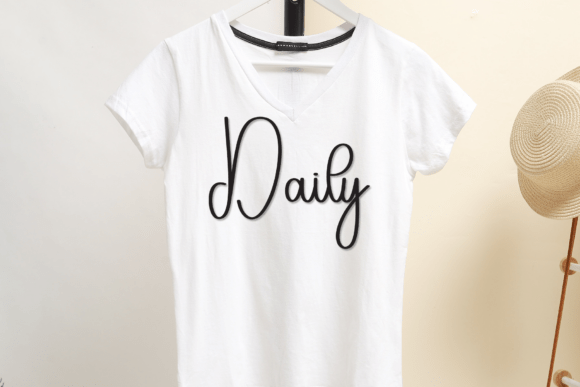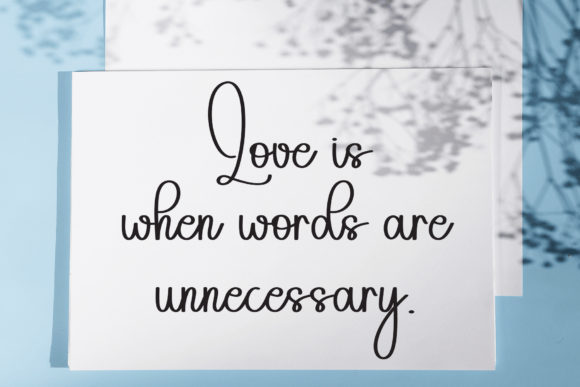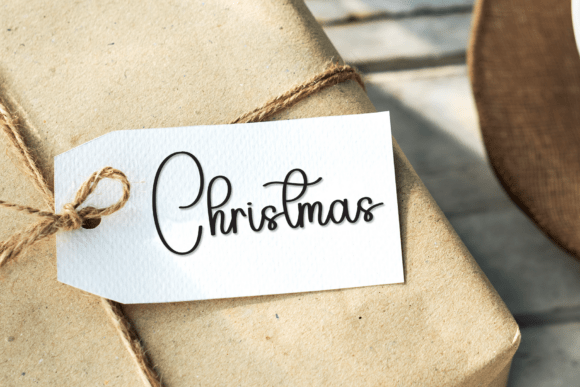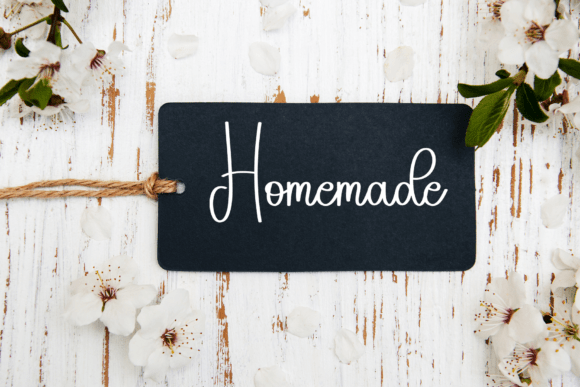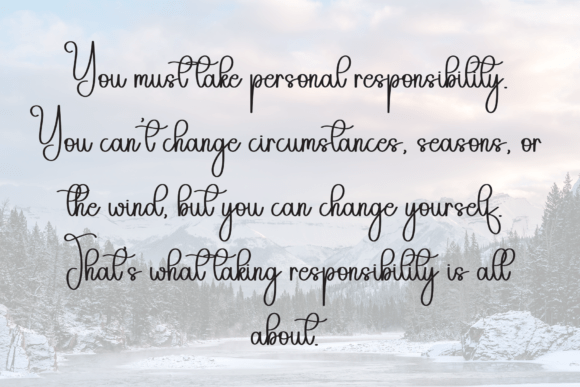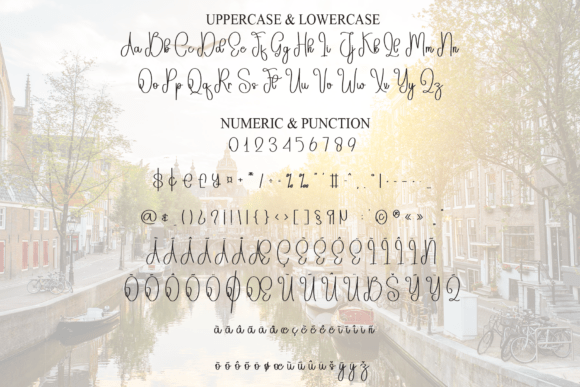
Unleash the Joy of Handwritten Charm with Amsterdam Font
Who hasn’t felt a surge of excitement when flipping through a beautifully designed wedding invitation or greeting card? The tactile experience of holding a physical piece of art, the way the words dance across the page, and the overall sense of whimsy – it’s a moment that sparks creativity and inspires us to create something special. For designers, finding the perfect font can make all the difference in capturing that magic and making our designs truly unforgettable.
Enter Amsterdam Font, a delightful handwritten display font that exudes warmth and playfulness. This charming font is designed to add a touch of joy to your designs, making it perfect for wedding invitations, greeting cards, and any project that requires a dash of whimsy. By incorporating Amsterdam Font into your designs, you’ll not only elevate the aesthetics but also create a visual treat that captures the hearts of your audience.
- Unique Characteristics: Amsterdam Font features a unique blend of modern and traditional typography, with a distinctive flair and elegance that sets it apart from other fonts.
Amsterdam Font Review
I recently had the chance to work with the Amsterdam Font, and I must say it’s a unique addition to any design project. ✨ One of the things that stands out about this font is its quirky, handwritten feel, which adds a touch of personality to any text. ✨ The Amsterdam Font is perfect for creating a laid-back, casual atmosphere in your designs, making it ideal for blogs, social media, or any project that requires a relaxed tone.
- Quirky, handwritten feel that adds personality to text
- Perfect for creating a laid-back, casual atmosphere
- Easy to read and use in various design projects
However, there are some limitations to consider. ⚠️ One of the main issues I had with the Amsterdam Font is its lack of versatility. While it’s great for casual projects, it may not be the best choice for more formal or professional designs. Additionally, the font can be a bit difficult to read at smaller font sizes, which may require some adjustments in your design.
- Lack of versatility for formal or professional designs
- Difficult to read at smaller font sizes
Overall, I think the Amsterdam Font is a great addition to any designer’s toolkit. While it may have some limitations, its unique feel and easy-to-read design make it a great choice for casual projects. With a bit of creative thinking, the Amsterdam Font can help take your designs to the next level.
Amsterdam Font is ideal for use in designs that require a clean, elegant, and sophisticated look.
– Luxury product packaging and branding
– High-end magazine and newspaper layouts